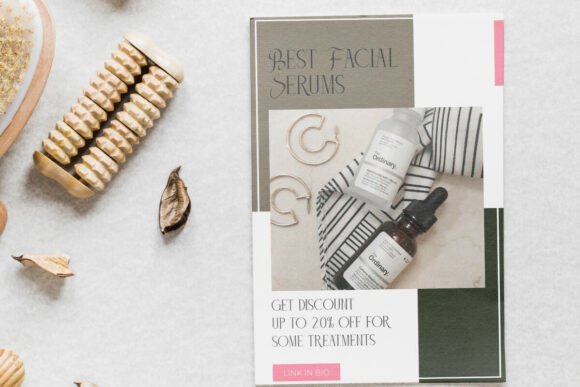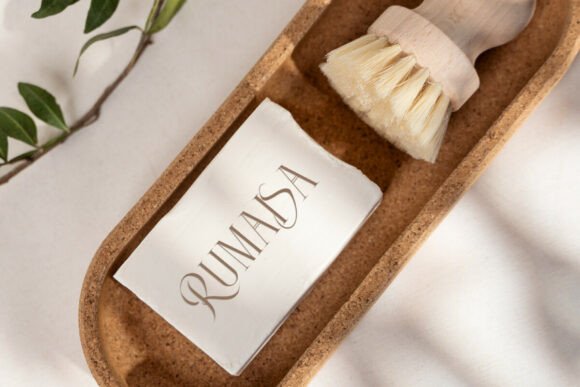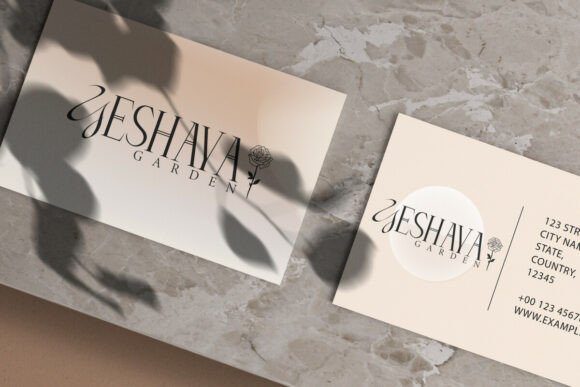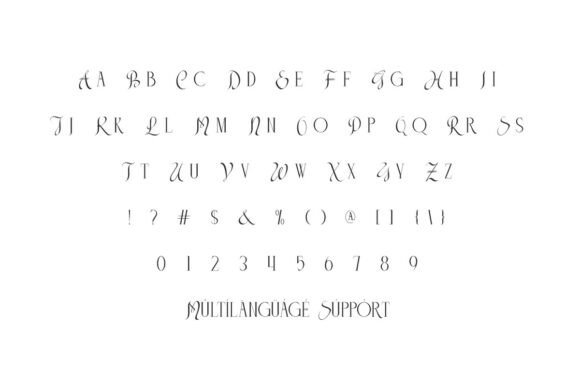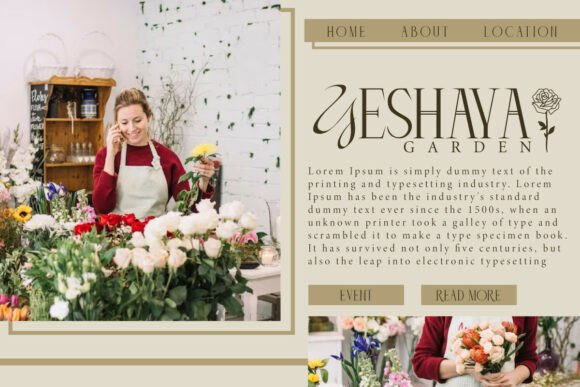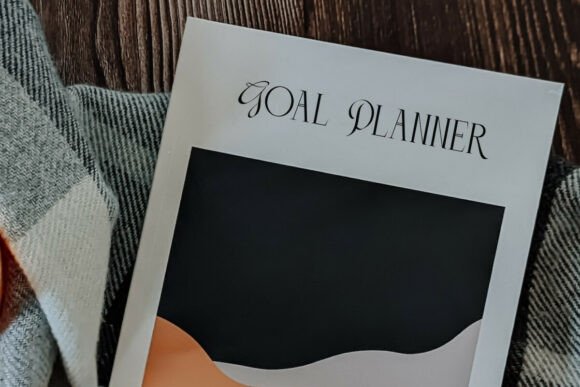
Introduction to Selarasi Font
Imagine you’re working on a creative project, and you’re struggling to find the perfect font that exudes elegance and sophistication. You’ve tried numerous options, but nothing seems to fit the vibe you’re going for. That’s where the Selarasi Font comes in – a luxurious and fashionable font that’s sure to elevate your designs to the next level.
As a designer, you understand the importance of having a versatile and high-quality font that can be used across various mediums, from brochures and social media posts to magazine designs and web applications. The Selarasi Font is a valuable resource that can help you achieve your creative goals, and it’s now available for free download.
With its light and minimalist design, the Selarasi Font is perfect for designers who want to add a touch of sophistication to their projects. Whether you’re working on a personal or commercial project, this font is sure to impress with its beautiful, curved style and transparent background.
- Perfect for digital design: With its modern and sleek design, Selarasi Font is ideal for digital design projects, such as website headers or social media graphics.
Honest Review: Selarasi Font
I recently stumbled upon the Selarasi Font and I’m excited to share my thoughts on this beautiful design resource. As a designer, I’m always on the lookout for high-quality fonts to elevate my creative projects.
- ✨ High-quality design: The Selarasi Font boasts stunning letterforms and a clean, modern aesthetic that’s perfect for a wide range of design applications.
- ⚠️ Limited font sizes: While the font is available in several weights, I found that the font sizes are somewhat limited, which may not be suitable for large-scale designs.
- ⚠️ No extended character set: I noticed that the font doesn’t include an extended character set, which may be a drawback for designers working with non-English languages.
Overall, I’m impressed with the Selarasi Font’s potential, but I do think it could benefit from some additional features and character sets. Nevertheless, it’s a solid choice for designers looking for a high-quality, free font to add some flair to their creative projects.